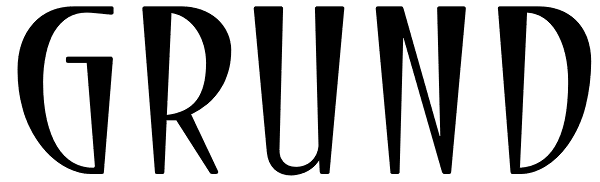
Grund
GRUND is a new fontographic adaption of a remarkable 1920s epigraphical find in the city of Leipsic. This old well-known European trade fair hotspot struggled with a severe shortage of exhibition space around 1920. The solution was to dig deeper...